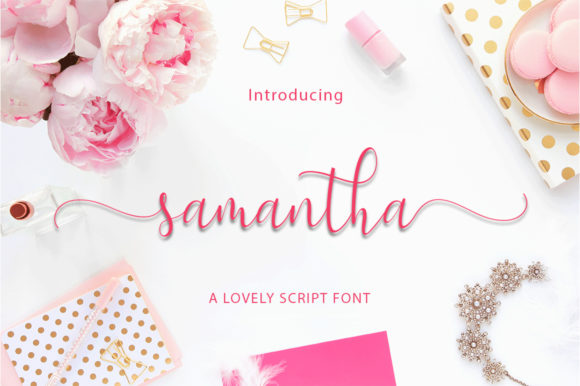
Samantha: The Handwritten Font That Adds Instant Charm
There’s something deeply human about a handwritten font. It carries a warmth and personality that digital type can often lack. When you find the right one, it doesn’t just display words—it communicates feeling. This is precisely where Samantha shines. It’s a delicate, carefully crafted script that feels both personal and polished, a rare combination that can elevate a design from ordinary to memorable.
Understanding the Visual Personality of Samantha
At its core, Samantha is a premium font with the soul of a classic script font. Its letterforms are elegant and flowing, with a natural, slightly varied baseline that mimics real handwriting. The strokes have a lovely, gentle pressure variation, creating a rhythm that’s pleasing to the eye. It’s not a casual, hurried scrawl; it’s a thoughtful, legible hand that suggests care and authenticity. This makes it a standout creative font for projects that need to connect on an emotional level.
What sets it apart from many other handwritten fonts is its balance. It has enough flair to be distinctive but remains remarkably readable, even at smaller sizes. The connections between letters are fluid, and the overall texture is soft and inviting. This versatility means it can feel whimsical and friendly for a children’s brand, or sophisticated and romantic for wedding stationery. It’s a typeface with genuine character.
Where Samantha Truly Excels: Practical Applications
The real test of any design asset is how it performs in the real world. Samantha proves its value across a wide spectrum of projects, acting as a secret weapon for adding a personal touch without sacrificing professionalism.
- Brand Identity & Logo Design: For businesses built on personal service, craftsmanship, or boutique appeal, Samantha is a natural fit. Think of a bakery logo, a photographer’s watermark, or the header for a consultant’s website. It instantly communicates approachability and a human touch, helping to build a brand identity that feels genuine and trustworthy.
- Editorial & Packaging Design: In editorial design, Samantha can be used for pull quotes, chapter titles, or feature article headers in magazines and blogs. It draws the reader in and breaks up the monotony of body text. For packaging design, especially for artisanal goods, cosmetics, or gourmet foods, it adds a layer of perceived quality and care that can influence a purchase decision.
- Digital & Social Media Graphics: As a display font, it’s fantastic for creating eye-catching headlines on websites and landing pages. On social media, where attention spans are short, using Samantha in your graphics can stop the scroll. It’s perfect for quote graphics, promotional announcements, or Instagram story overlays, making your content feel more curated and engaging.
- Personal & Commercial Projects: Beyond business, it’s a joy for personal projects like wedding invitations, greeting cards, and scrapbooking. For small business owners and crafters, it’s a commercial font that can be licensed for products they sell, such as printed planners, T-shirt designs, or downloadable wall art.
Making It Work: Guidance for Effective Use
Choosing a beautiful font is only the first step. Using it effectively is what makes the design work. Here’s how to get the most out of Samantha.
Evaluating Fit and Readability
Always start by considering your audience and project tone. Samantha’s charm is in its personality, so it’s ideal for projects where warmth and approachability are key. For a law firm’s annual report, a clean sans serif font might be more appropriate. For a yoga studio’s brochure, Samantha could be perfect. Always test it at the size you intend to use. While it’s legible for a script, long paragraphs of body text are still best reserved for a more neutral serif font or sans serif. Use Samantha for headlines, subheads, and accents to maintain clarity.
Mastering Font Pairing
The right font pairing is crucial. Samantha needs a partner that grounds it. A simple, clean sans serif like Lato or Montserrat creates a beautiful contrast, letting Samantha’s elegance shine without competition. For a more classic, refined look, pair it with a transitional serif like Garamond or Georgia. The key is to let Samantha be the star of the show. Use it sparingly for key elements, and let its paired typeface handle the heavy lifting of body copy. This creates a clear visual hierarchy and ensures your design feels balanced and professional.
Exploring Styles and Licensing
Many premium versions of Samantha come with valuable extras. Look for stylistic alternates, ligatures, and swashes. These are alternate characters that can add even more flair and customization to your typography, allowing you to tailor the look precisely to your project’s needs. Finally, always pay close attention to the licensing. If you’re using it for a client project, a product you sell, or extensive commercial use, ensure you have the correct commercial font license. This protects you and respects the work of the type designer.
In the end, Samantha is more than just a typeface. It’s a tool for storytelling. It allows designers, marketers, and creators to infuse their work with a sense of authenticity and handcrafted quality that resonates deeply with audiences. When used thoughtfully, it doesn’t just make a design look good—it makes it feel right.